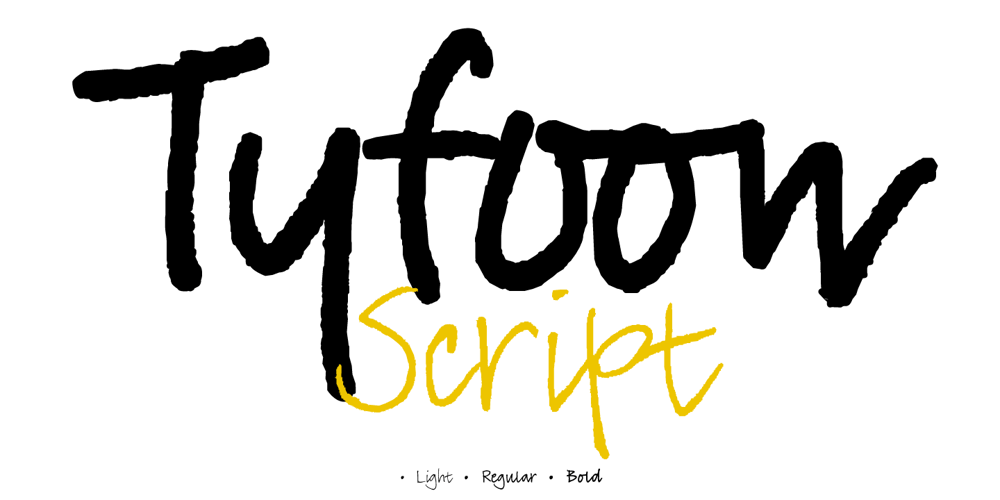
TyfoonScript Font Family was designed by Hanneke Classen and published by Fontforecast. TyfoonScript contains 3 styles and family package options. TyfoonScript is the handwritten relative of TyfoonSans. With its slightly rough contours it has a lot of personality and good legibility when used in small sizes. It consists of 719 glyphs, has multiple language support and comes in 3 weights. Stylistic alternates, ligatures and contextual alternatives contribute to an authentic handwritten appearance. Fractions, old-style and tabular figures are also included. Suitable for blocks of text as well as quotes, remarks, statements or a personal friendly emphasis. TyfoonScript and TyfoonSans share the same metrics and blend together perfectly. They can be used in the same text frame without adjustments to leading or size.